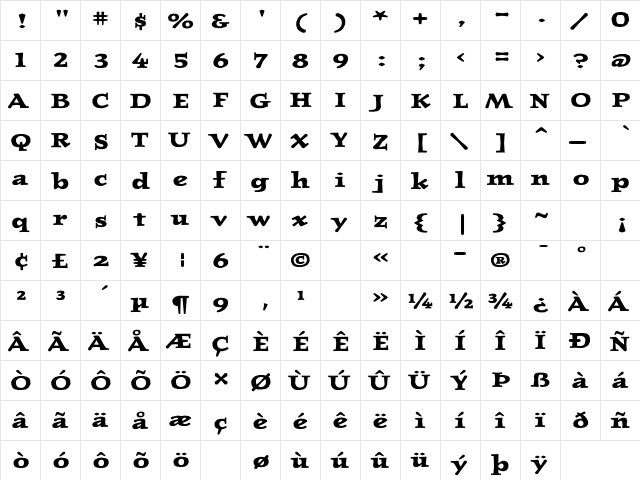
JournalLining-UltraBold Ultra Bold
Design Context for JournalLining-UltraBold Typeface
JournalLining-UltraBold is a composed and adaptable typeface that performs quietly and consistently across a wide range of design contexts. The heavy weight commands attention and anchors typographic hierarchies.